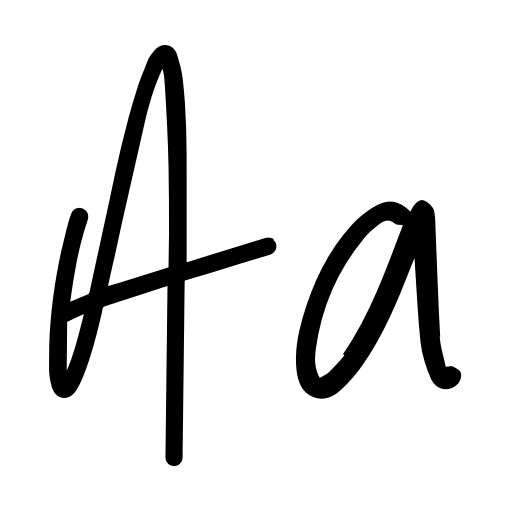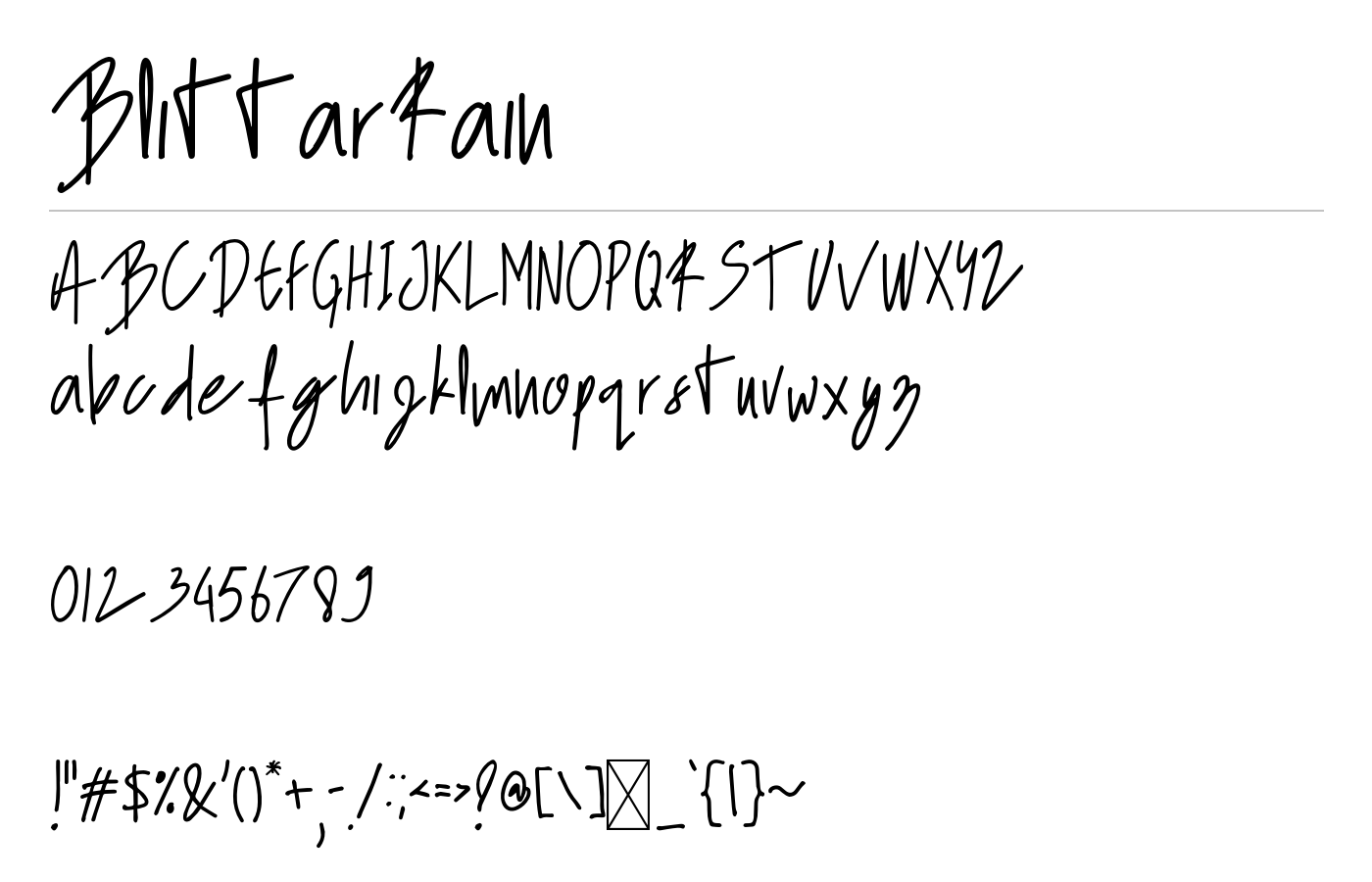
BlittarRain is a casual, handwritten font with a tall, narrow structure and a playful, energetic feel. Its thin, uneven strokes and slightly irregular letterforms give it a lively and personal touch, making it ideal for creative projects that want to convey spontaneity and a friendly vibe. This font works well for informal branding, social media graphics, or artistic headlines where a unique, handwritten look is desired.
BlittarRain Font
About BlittarRain Font
| Font family | BlittarRain Font |
| Designer | bibbble |